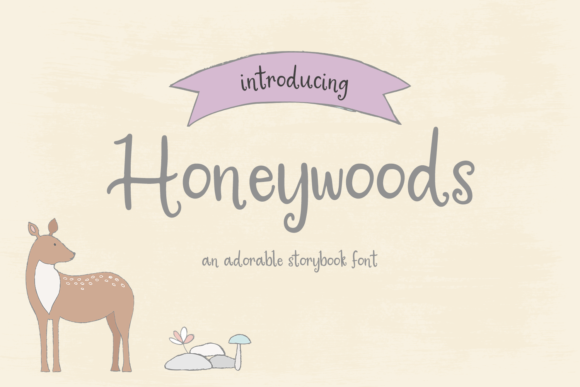
**Introducing Honeywoods: The Sweetest Font for Children's Eyes**
Calling all parents, teachers, and creatives! Prepare to be enchanted by Honeywoods, the most captivating handwritten font that will ignite imagination and bring a smile to your face.
**Crafted with Love, Inspired by Innocence**
Honeywoods is the brainchild of BeckMcCormick, a renowned designer who understands the power of fonts to inspire and engage. With each stroke of the pen, Honeywoods embodies the sweetness and innocence of childhood, making it the perfect choice for any project that aims to capture the hearts of young readers.
**A Font that Flows Like Honey**
Experience the effortless flow of Honeywoods as it dances across the page, creating a visual symphony that captures the essence of childhood magic. Its natural and unique style makes it incredibly adaptable, lending a touch of charm to everything from storybooks to invitations and beyond.
**Educational Excellence: The Best Font for Children to Read**
Honeywoods is more than just a beautiful font; it's an educational powerhouse. Its well-spaced characters and large x-height make it incredibly easy for children to read, fostering a love of literature and unlocking a world of imagination.
**Empowering Creativity: Where Imagination Soars**
With Honeywoods, there's no limit to your creative potential. Its versatility knows no bounds, making it the perfect choice for everything from designing whimsical invitations to creating enchanting posters. Let Honeywoods be your muse and watch your ideas blossom into something truly magical.
**A Sweet Treat for Your Projects**
Indulge in the sweetness of Honeywoods and transform your projects into a feast for the eyes. Its charming and inviting nature will captivate your audience, leaving a lasting impression that will make them crave more.